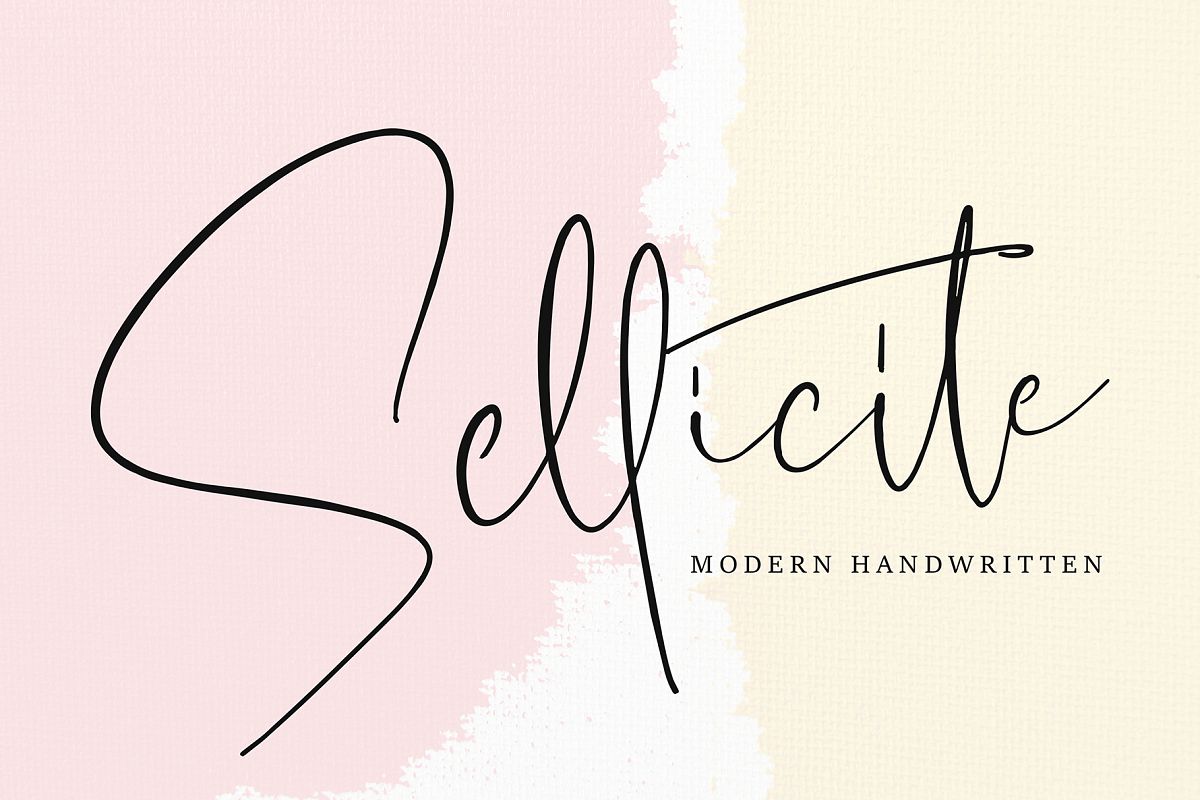
Sellicite
Sellicite modern Handwritten font style, this font will perfect for many different project ex: quotes, logo, blog header, poster, banding, fashion, apparel, letter, invitation, stationery, etc...